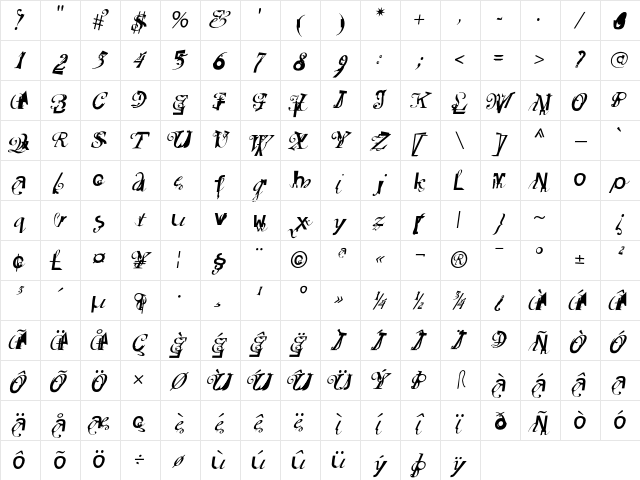
BlueEyeShadow Regular
Design Context for BlueEyeShadow
BlueEyeShadow is built around its visual character rather than neutral utility - its distinctive forms are designed to make an impression at display sizes.
Font Pairing: Pair with a clean neutral sans-serif for body copy to let BlueEyeShadow's character lead without overwhelming the composition.
Pro Tip: Use BlueEyeShadow exclusively at display sizes - it was designed to be seen, not read at length. Let a neutral companion handle body copy.